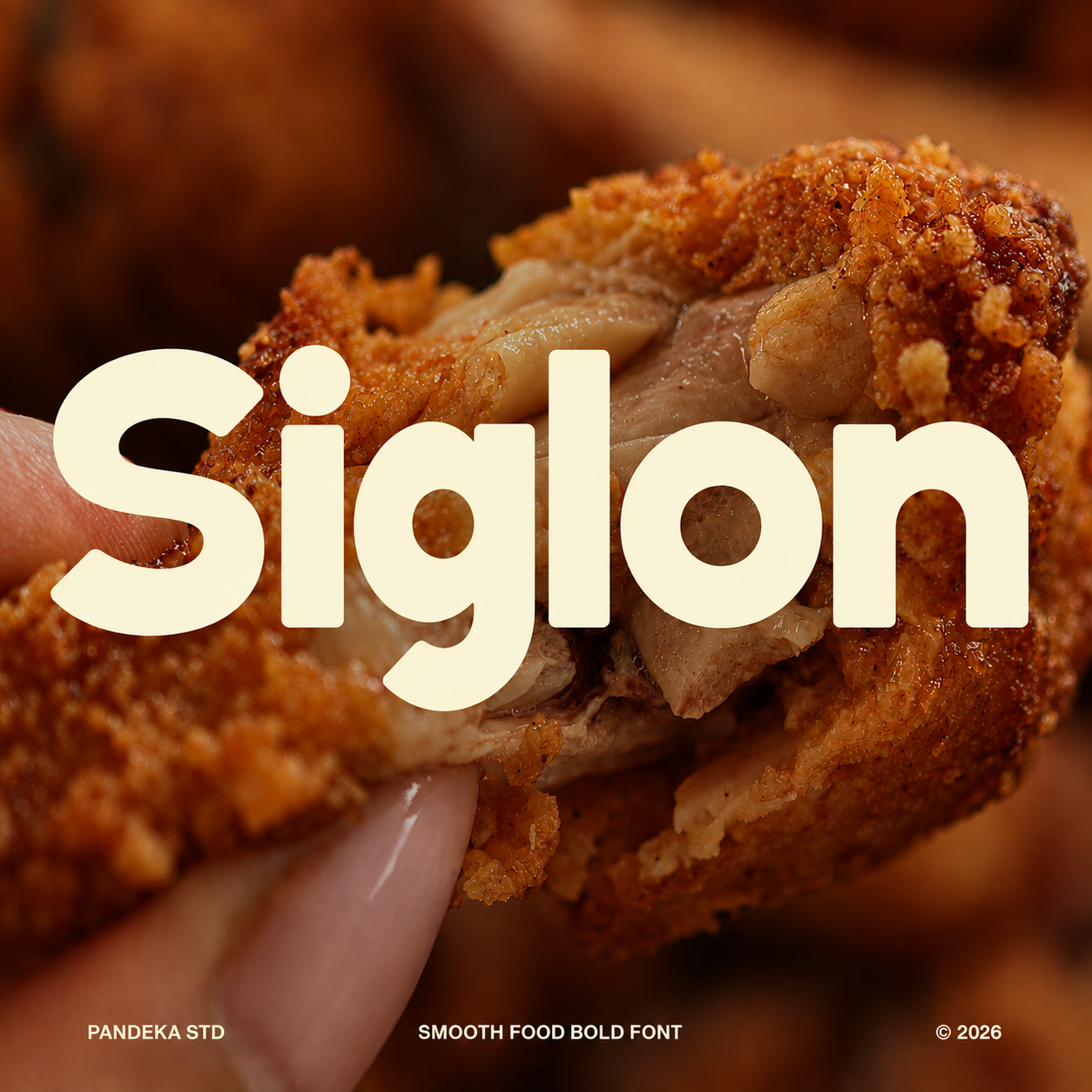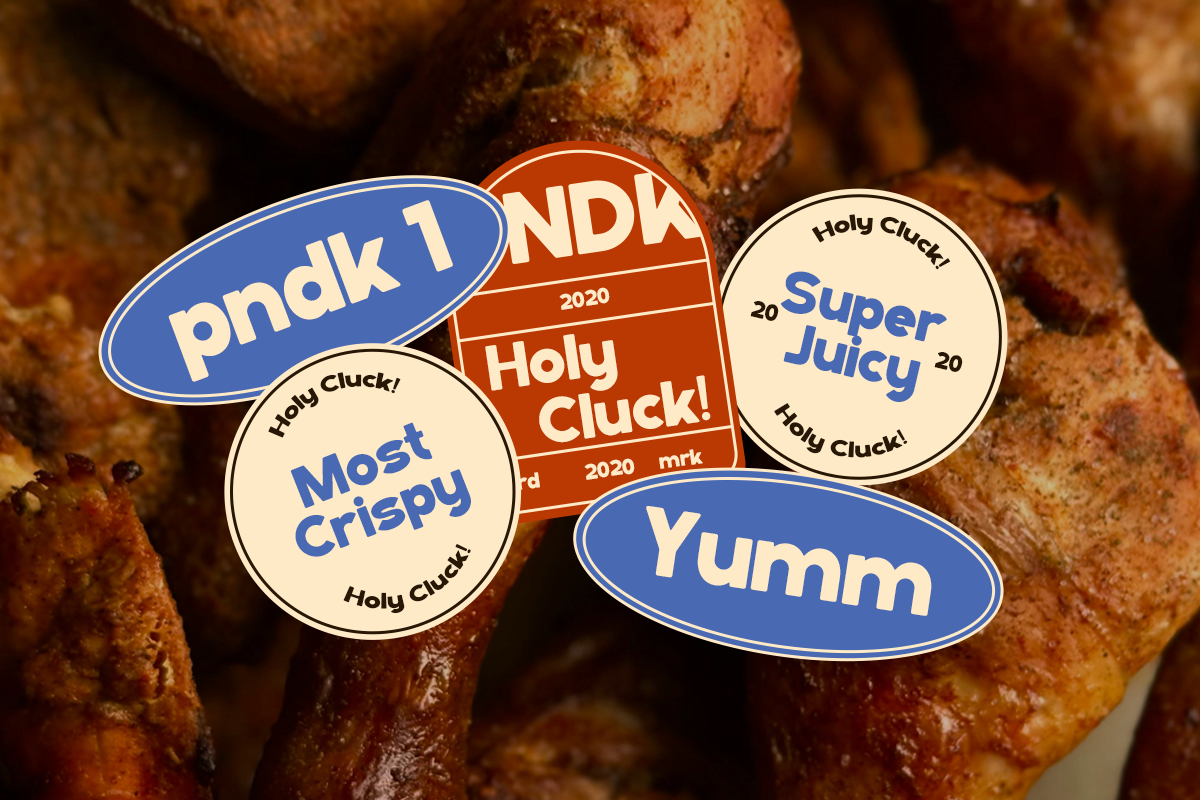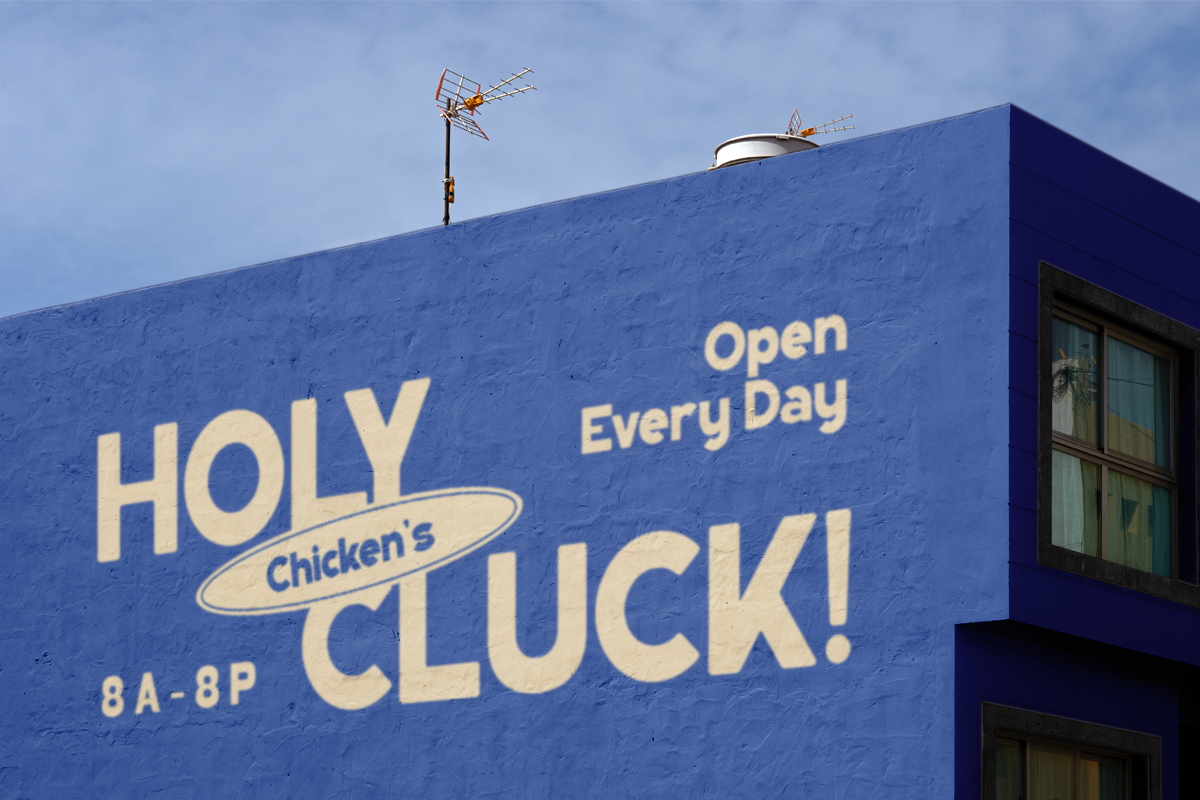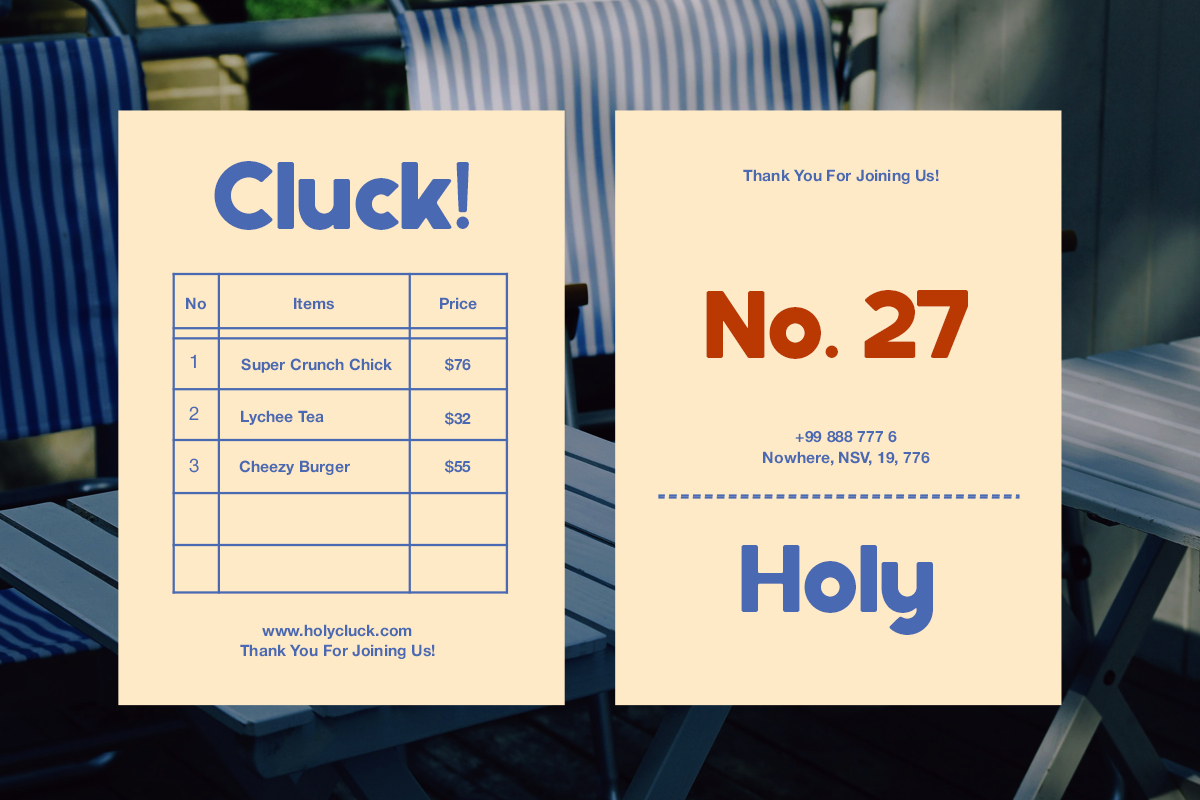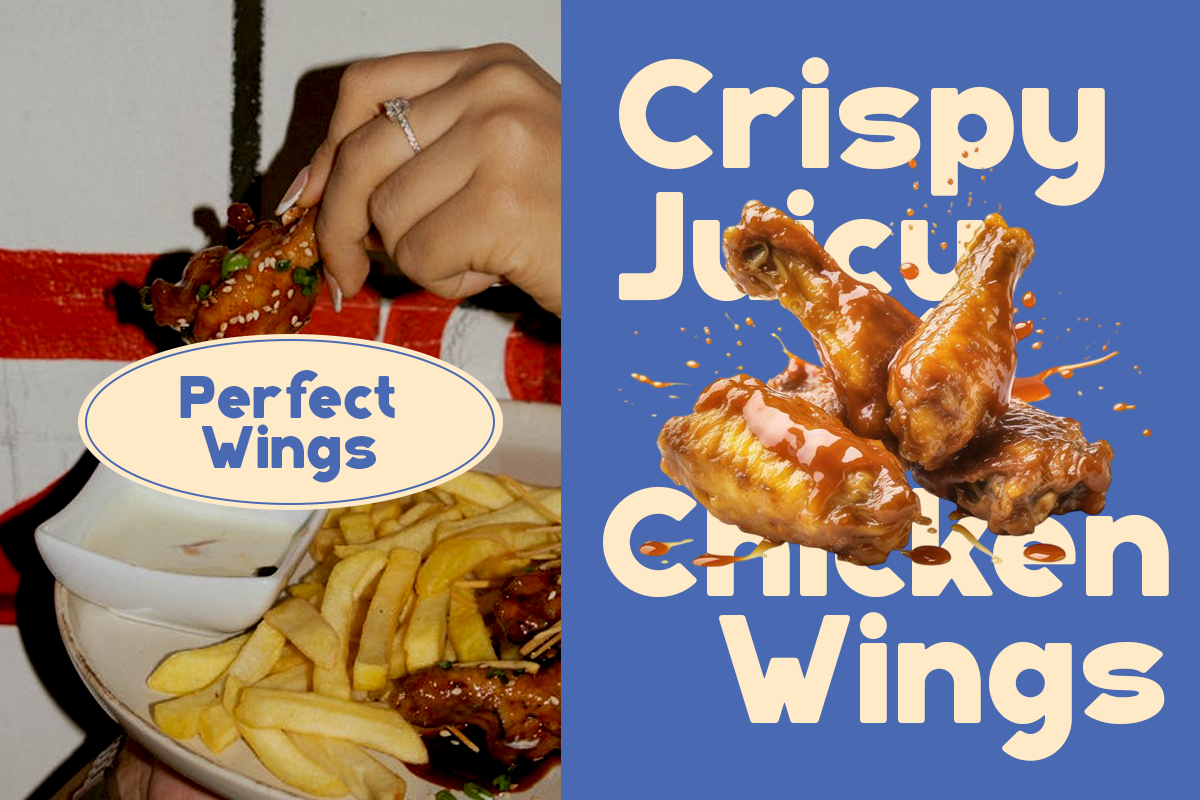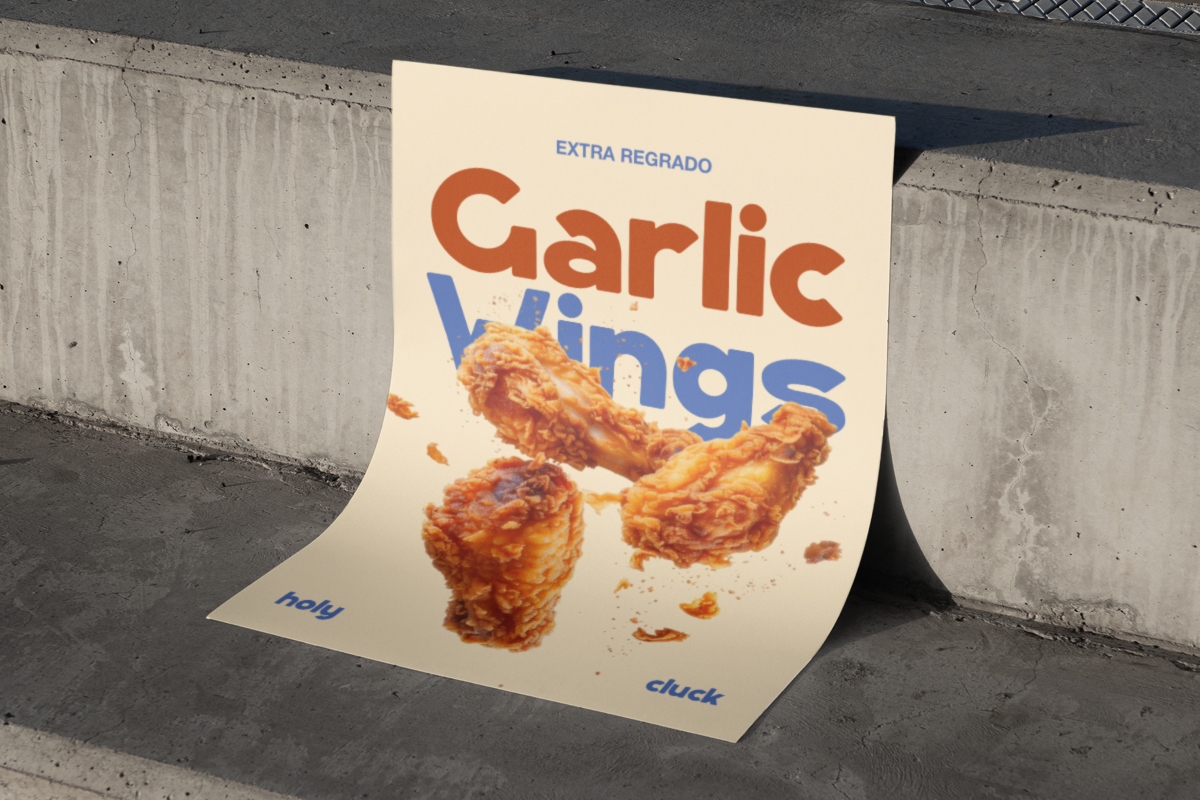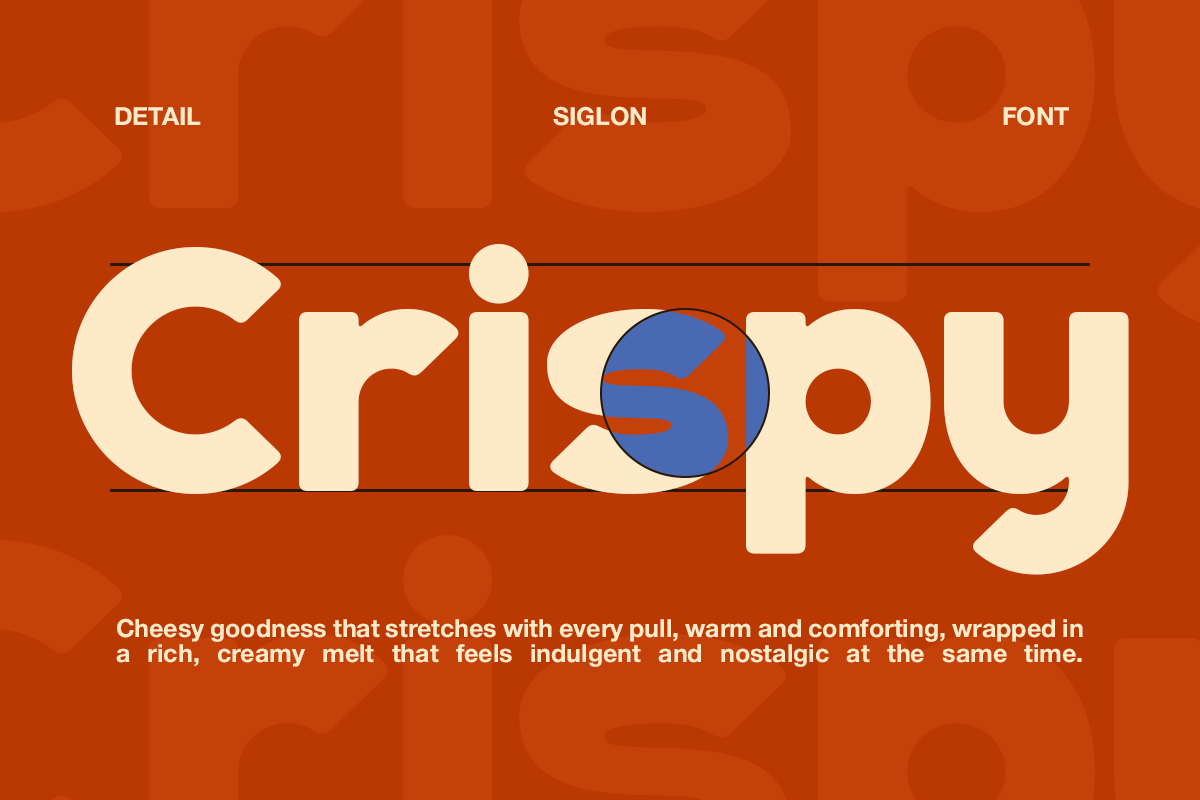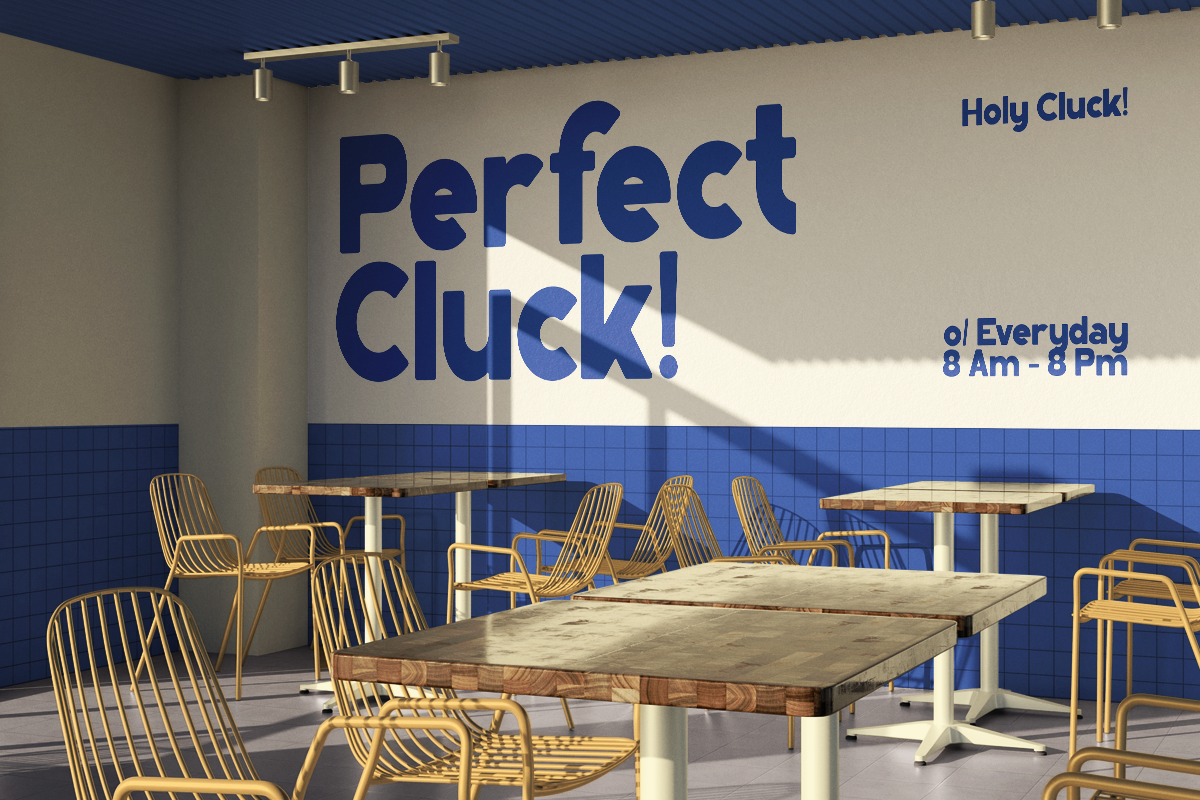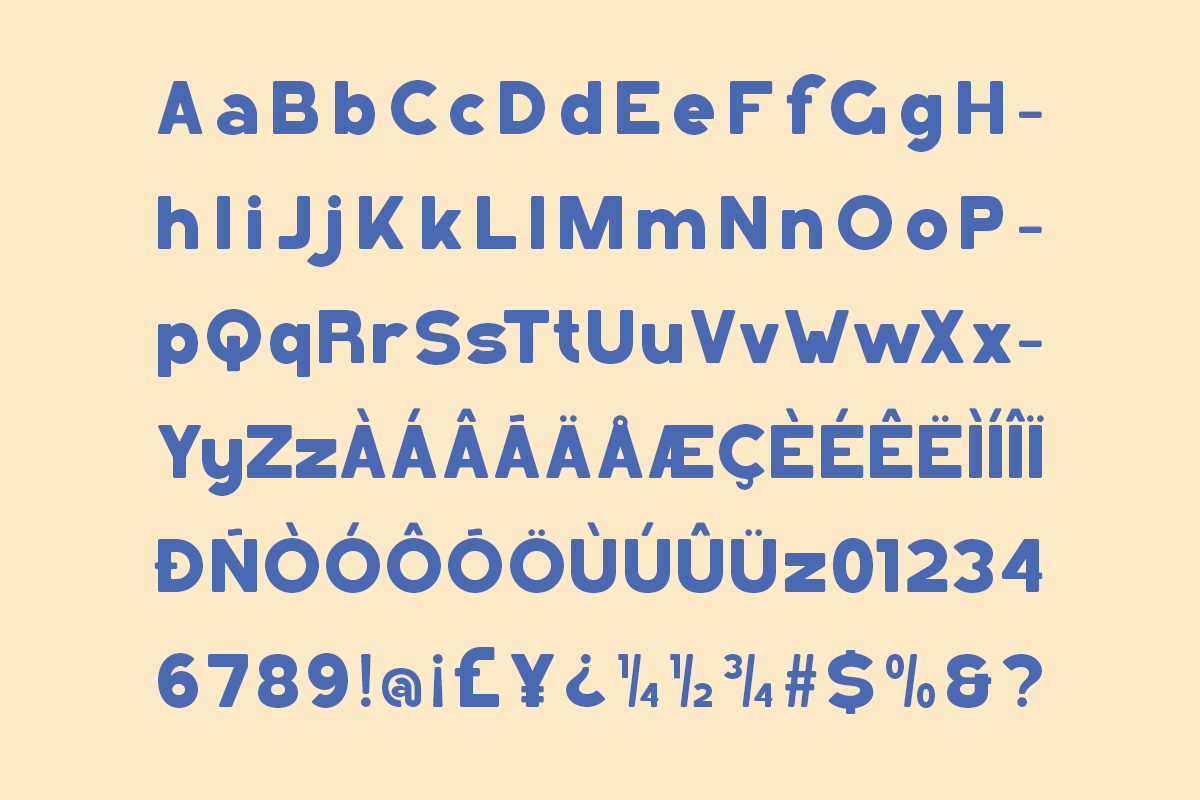
Siglon - Food Bold Font
Siglon is a bold food font designed to bring energy, flavor, and strong visual impact to food-related branding. Featuring thick rounded letterforms and a playful modern style, this font is perfect for fast food brands, fried chicken packaging, snack products, restaurant identities, menu boards, food promotions, signage, posters, and social media campaigns. Its bold appearance helps attract attention instantly while maintaining excellent readability across various design applications.
Created for branding and display purposes, Siglon works beautifully for logos, packaging, product labels, advertising materials, and promotional graphics. The friendly yet powerful character makes it ideal for businesses that want to create a memorable and appetizing brand presence. Whether used for restaurants, food packaging, culinary promotions, or modern food businesses, Siglon delivers a fun and impactful visual experience.
Full Character Set: Uppercase, lowercase, numbers, symbols, and punctuation
Siglon is a bold food font with thick, rounded letterforms in a single Regular style. It includes TTF, OTF, WOFF, and WOFF2 formats, a full character set with PUA encoding, and support for 24 languages, compatible with both PC and Mac.